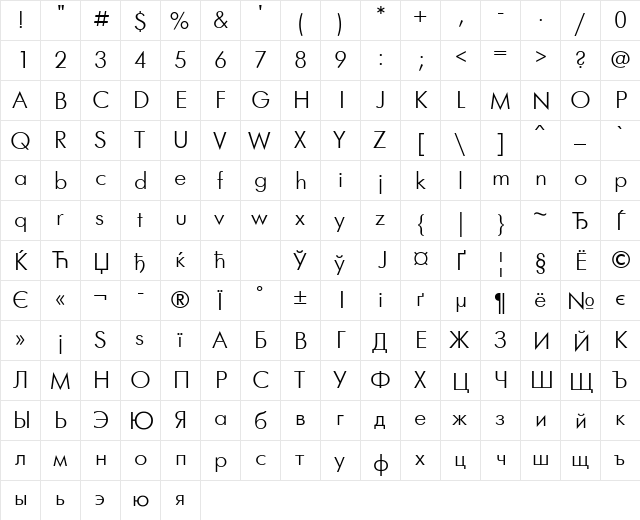
FuturisLightCTT Normal
Design Context for FuturisLightCTT Typeface
FuturisLightCTT channels digital-age aesthetics through its sharp, structured letterforms — ideal for brands that want to signal innovation. The delicate stroke weight brings airiness and refinement to layouts.
Pro Tip: Try FuturisLightCTT with generous letter-spacing in UI labels and navigation — the geometric forms benefit from room to breathe.